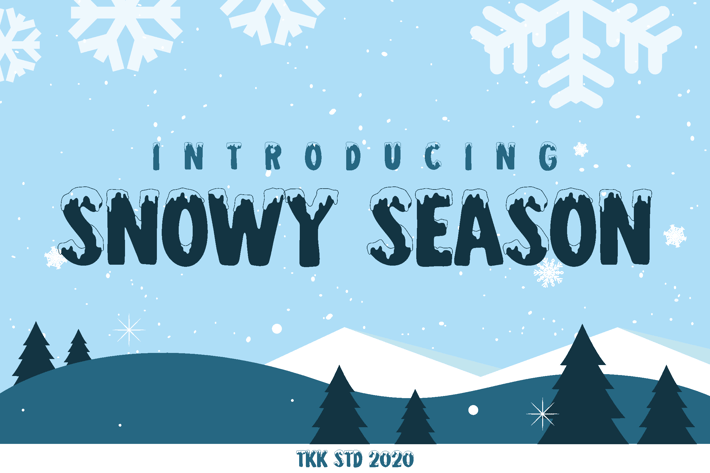
Snowy Season - Kids Font
Snowy Season
Snowy Season is a chunky kids display font with a hand-painted feel, designed for festive winter branding and storytelling. With playful proportions, bouncy baselines, and rough edges like snowflakes brushing off a mitten, this font captures the magic of snowy days. Its cozy, expressive letterforms bring charm and fun to every design, making it ideal for children’s projects, holiday campaigns, or heartwarming event invites.
From Christmas storybooks to festive sale posters, Snowy Season taps into emotional nostalgia and winter wonder. It creates an inviting and memorable tone perfect for branding, social media headers, editorial features, or even animated title cards for kid-focused content. This font speaks directly to designers looking to evoke joy, play, and snowy-day delight in one glance.
Key Features
Why Designers Love Snowy Season:
- Handmade feel with textured brush strokes for authentic, warm impressions
- Perfect for winter visuals like holiday cards, kids books, packaging, and sale ads
- High readability at both display and medium sizes
- Expressive design with soft contrast and casual, quirky rhythm
Ideal Use Cases:
- Kids product packaging
- Holiday social campaigns
- Greeting cards & winter merch
- YouTube thumbnails & storytime intros